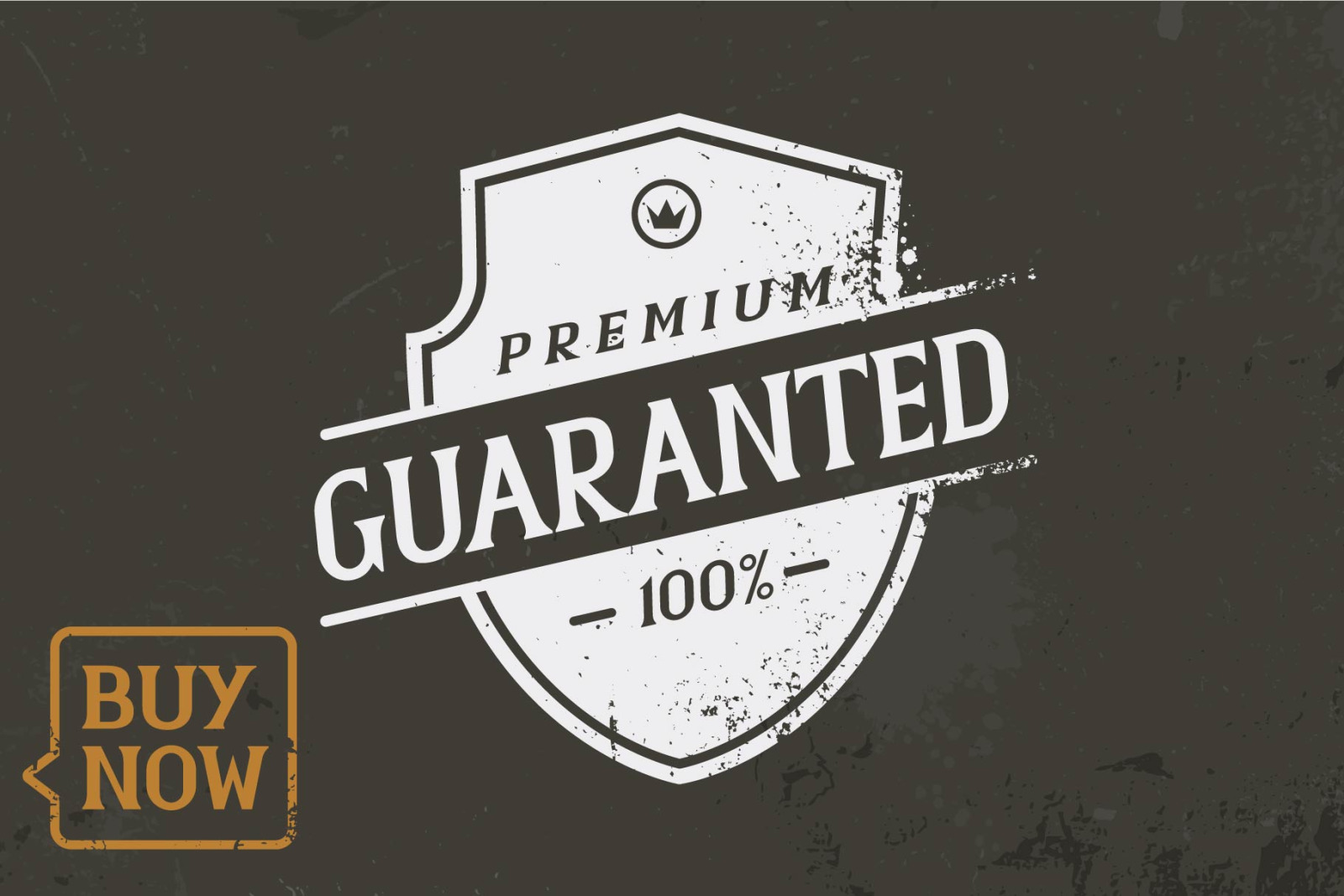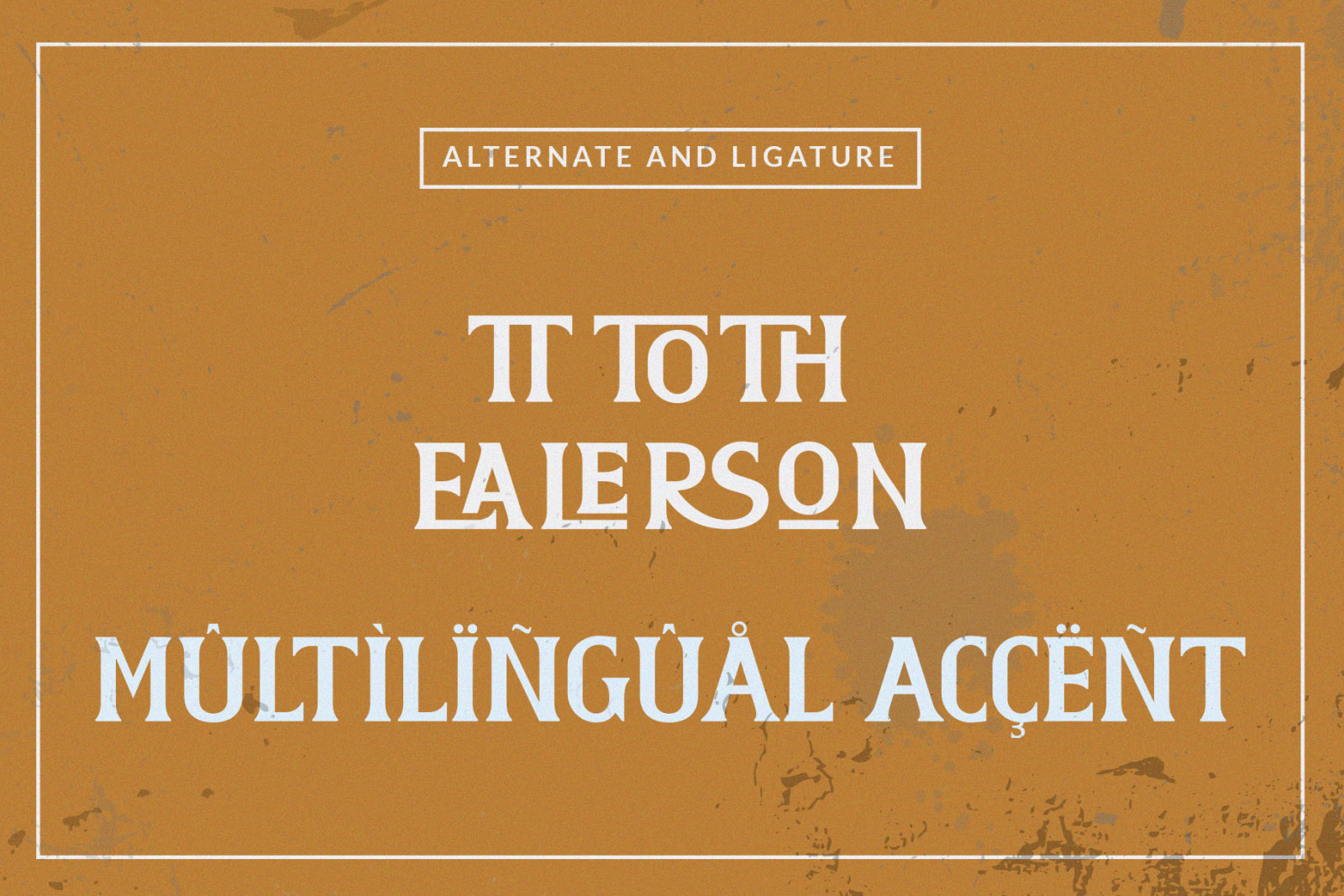
LEDERSON FONT
Introducing LEDERSON is a handmade display and I remade an enhanced version of this.
LEDERSON is an Industrial typeface with a masculine style that is suitable for your design needs that require a classic, vintage, yet modern touch. This font is perfect, for logos, product labels, posters or any design. This font also features OpenType with Stylistic Alternate and Contextual Alternate in some characters which allows you to mix and match letter pairs to suit your designs.
* UPPERCASE
* LOWERCASE
* Multilingual
* NUMBERAL AND PUNCTUATION
* ALTERNATE AND LIGATURE